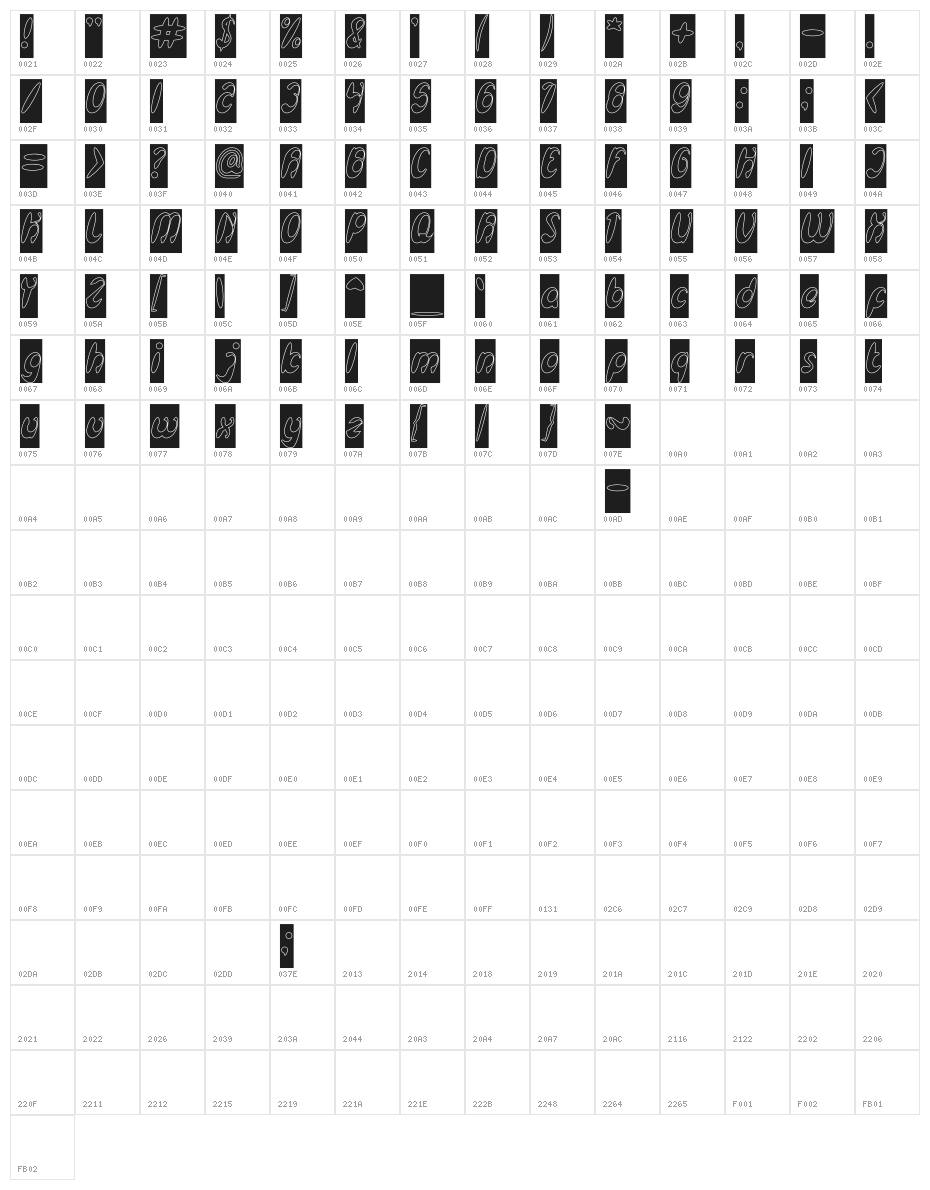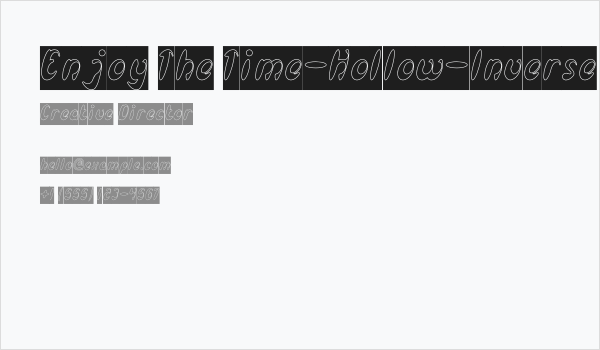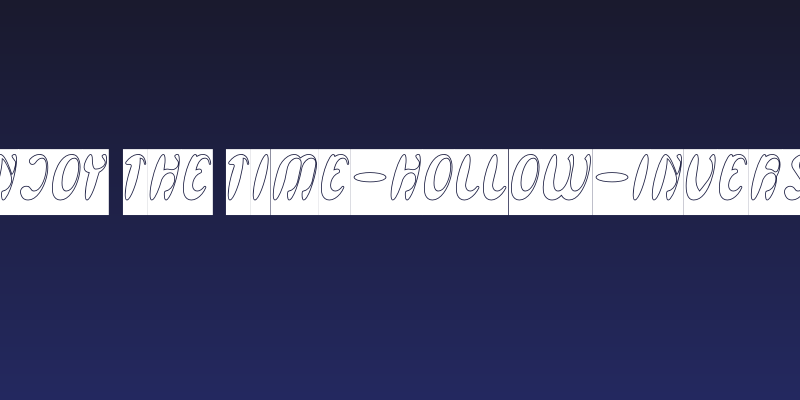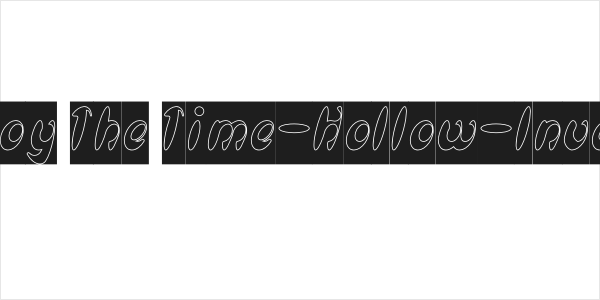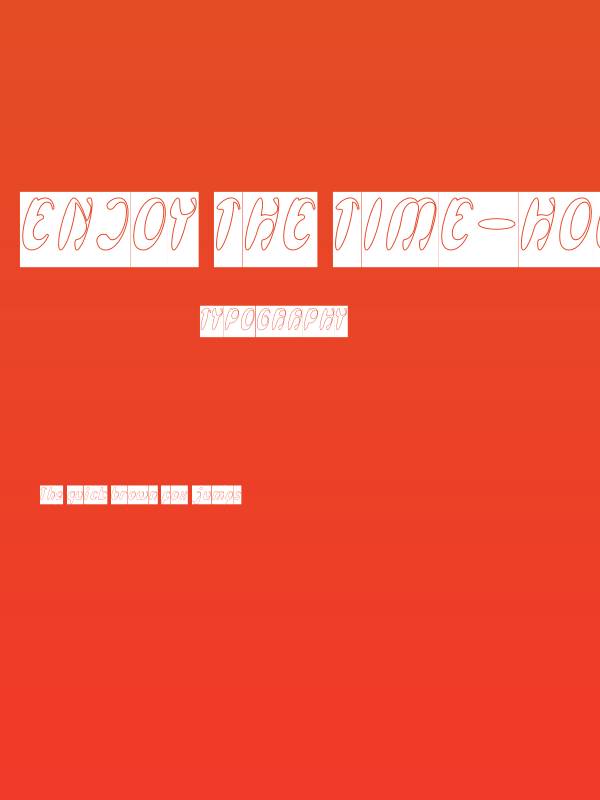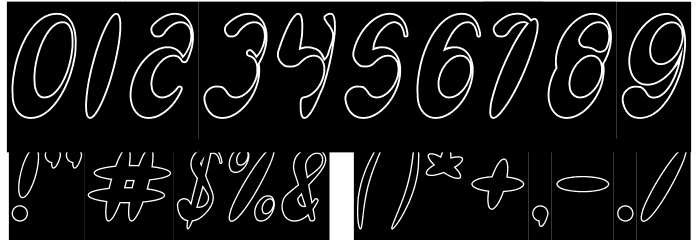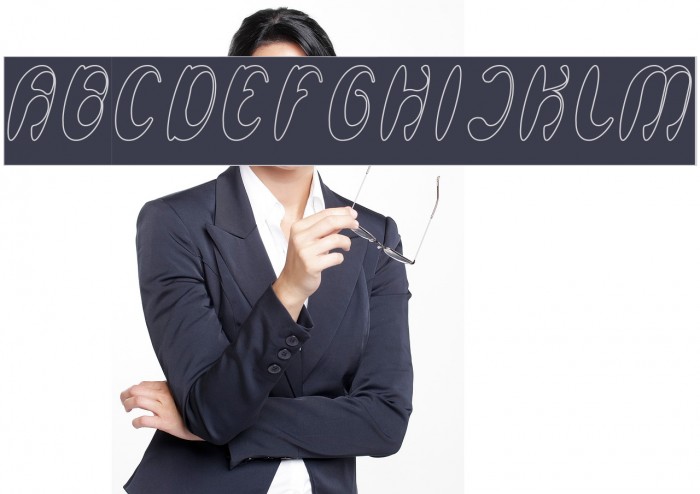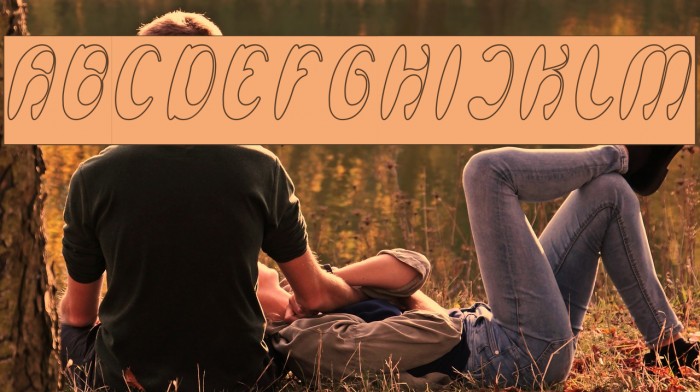
Enjoy The Time-Hollow-Inverse Font
Enjoy The Time-Hollow-Inverse Description
This font features a playful and whimsical design with hollow, outlined characters that give it a unique and airy appearance. The letters are rounded and smooth, with a consistent stroke width that maintains a light and open feel. The uppercase and lowercase letters maintain a cohesive style, with the lowercase letters mirroring the playful curves of the uppercase. Numbers and special characters are designed to match the overall aesthetic, ensuring a harmonious look across all text. The font's hollow nature makes it stand out, adding a touch of creativity and fun to any project.
| Proposed Projects | Ideal for children's books, playful branding, creative posters, and casual invitations. |